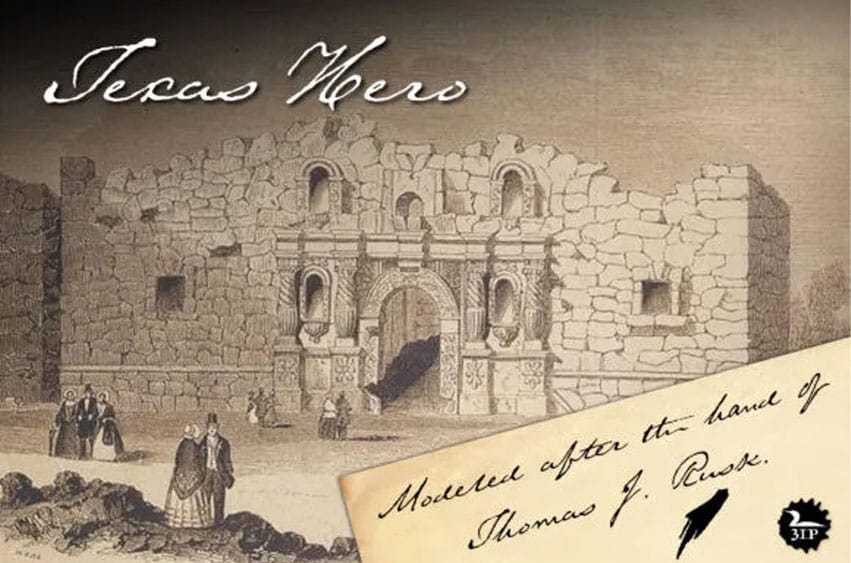
Texas Hero Font is based on the penmanship of Thomas Jefferson Rusk, an early Texas patriot and leader, whose handwriting is accessible and legible yet clearly evocative of the period. Released in 1994, it’s the first font to replicate genuine historical penmanship.
Texas Hero has more than 500 glyphs, discretionary ligatures, contextual alternates, lining and old-style figures, and full Latin support.